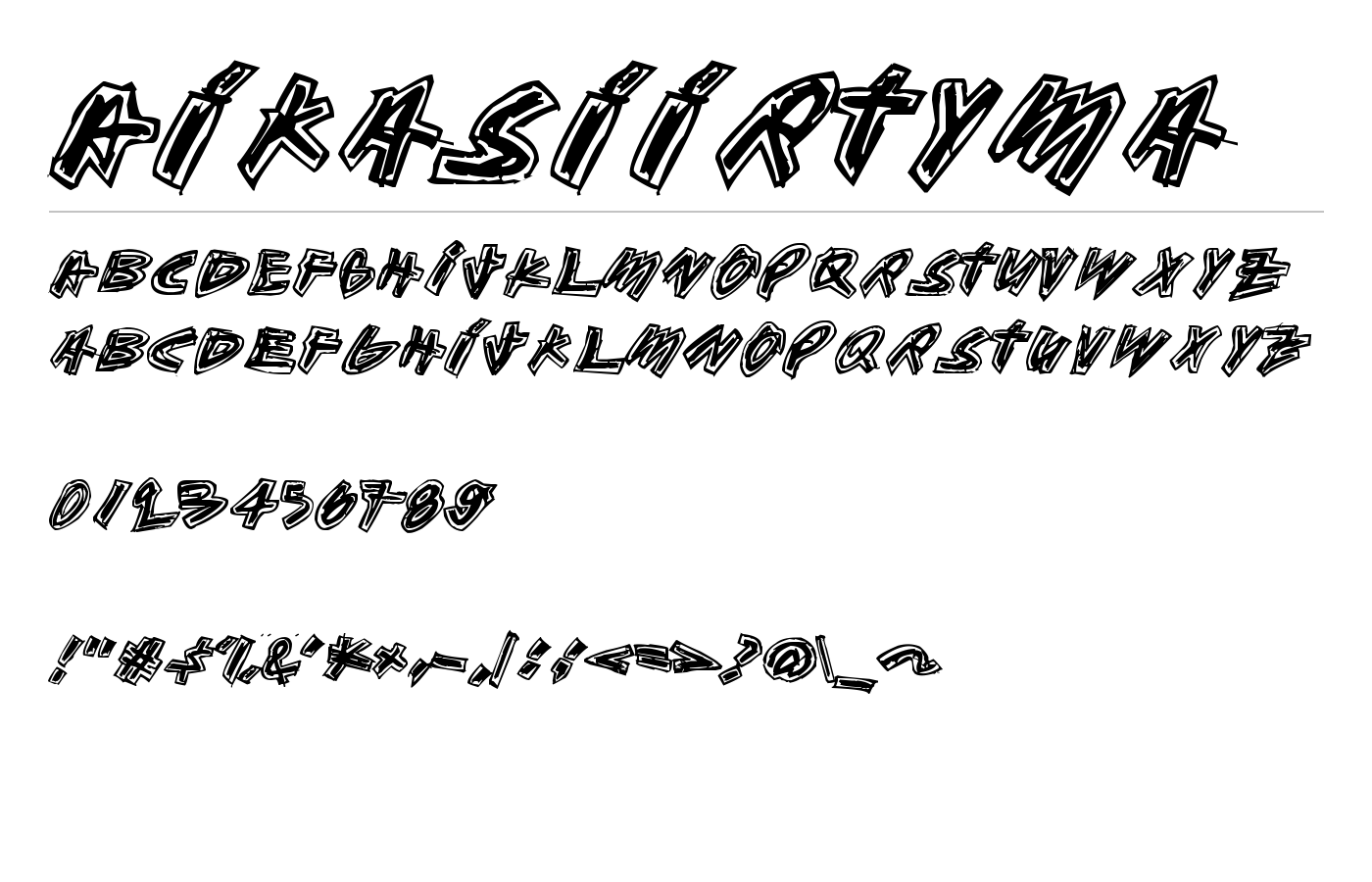
Aikasiirtyma is a bold, expressive display font with a dynamic, hand-drawn feel marked by strong, jagged strokes and angular shapes. Its energetic style and irregular letterforms make it perfect for eye-catching headlines, posters, or creative branding that aims to convey a sense of movement and edgy personality. This font works best in settings that need a striking, unconventional look rather than extended body text.
Aikasiirtyma Font
About Aikasiirtyma Font